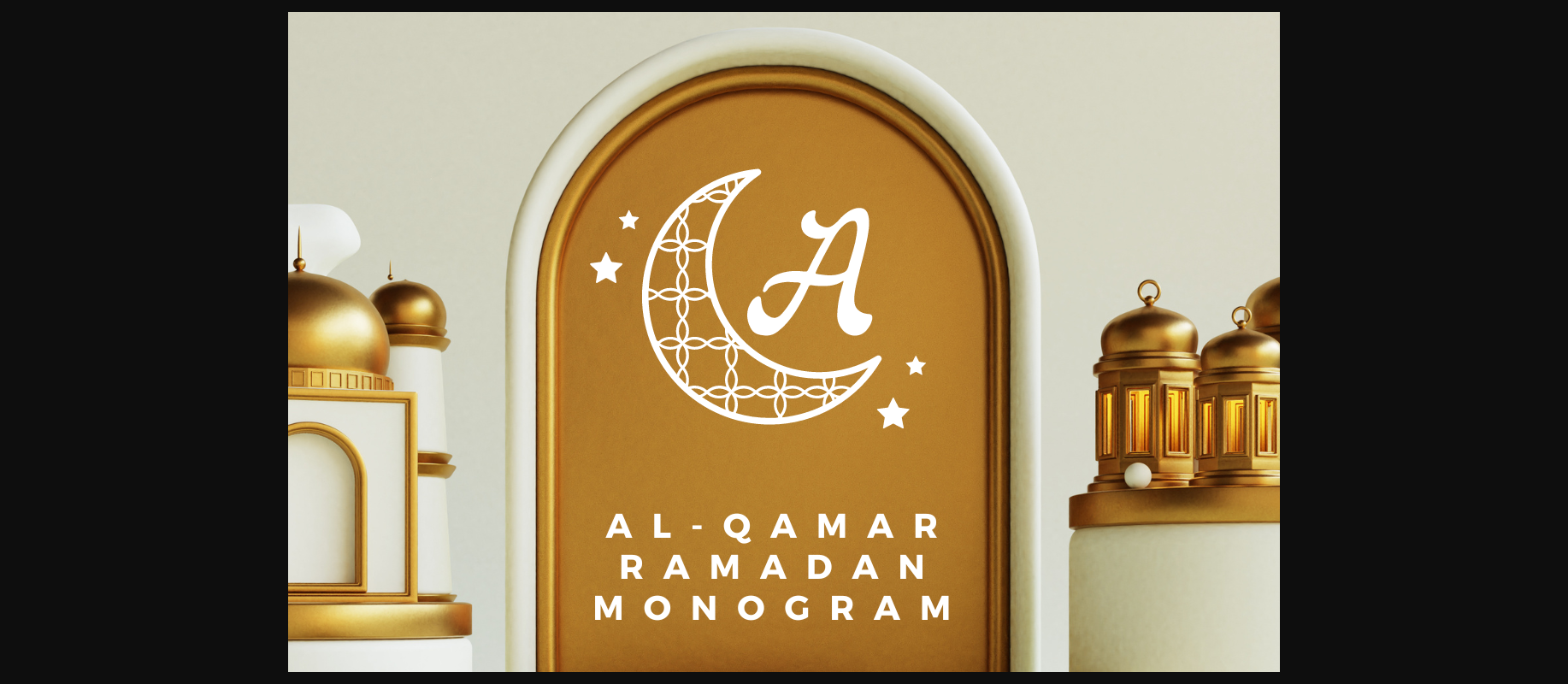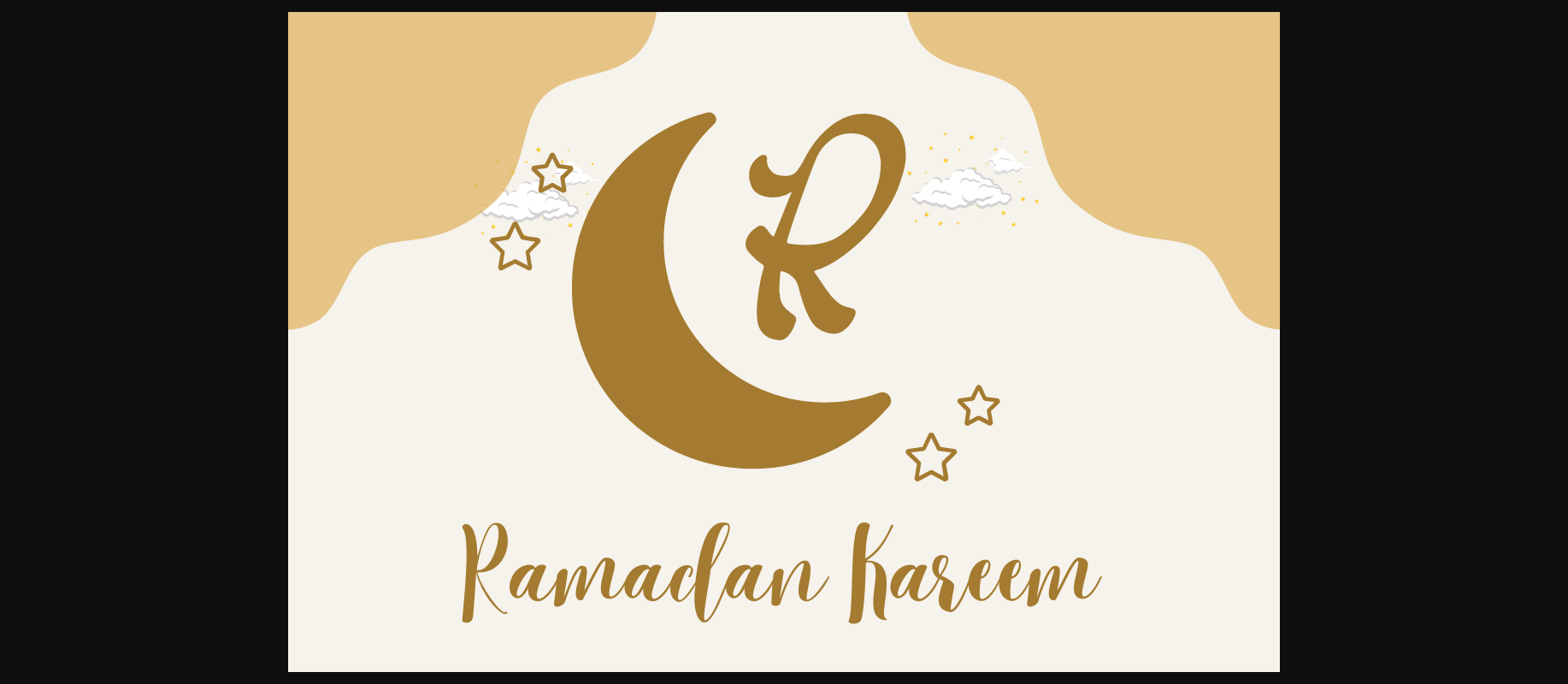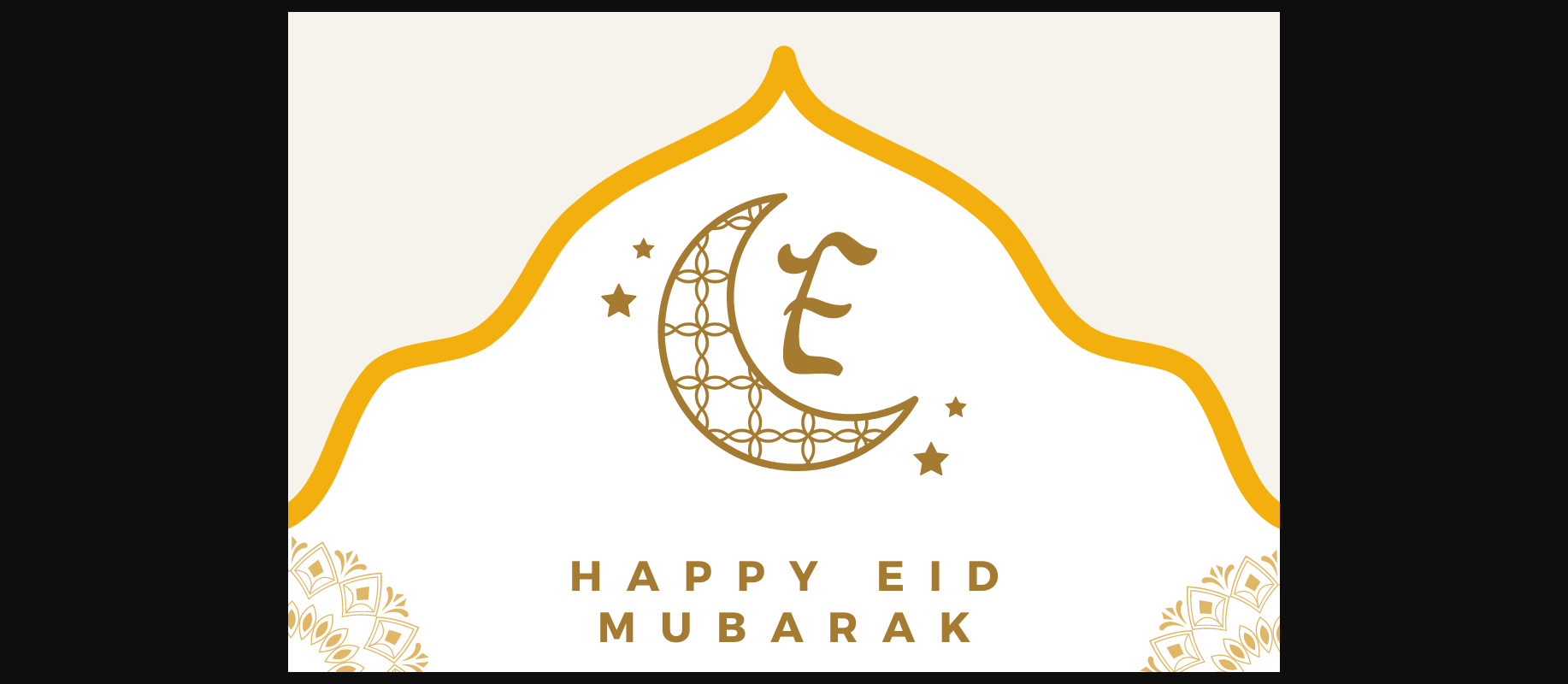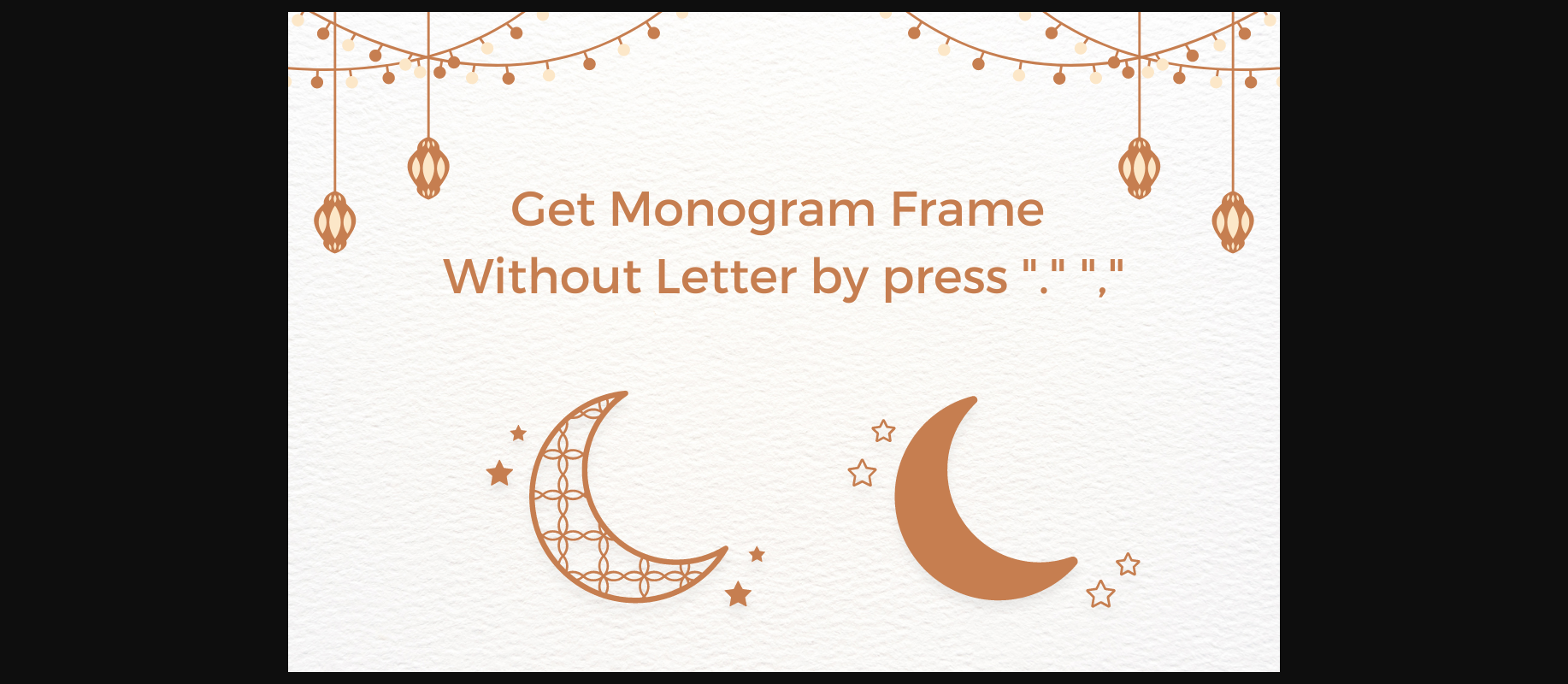
About Alqamar Ramadan Monogram Font
Alqamar Ramadan Monogram is a decorative typeface that is designed with the Ramadan theme in mind. This font is characterized by its elegant and stylish design, with clean lines and a modern aesthetic.
It is suitable for use in a variety of contexts, including invitations, cards, branding materials, and other design projects.